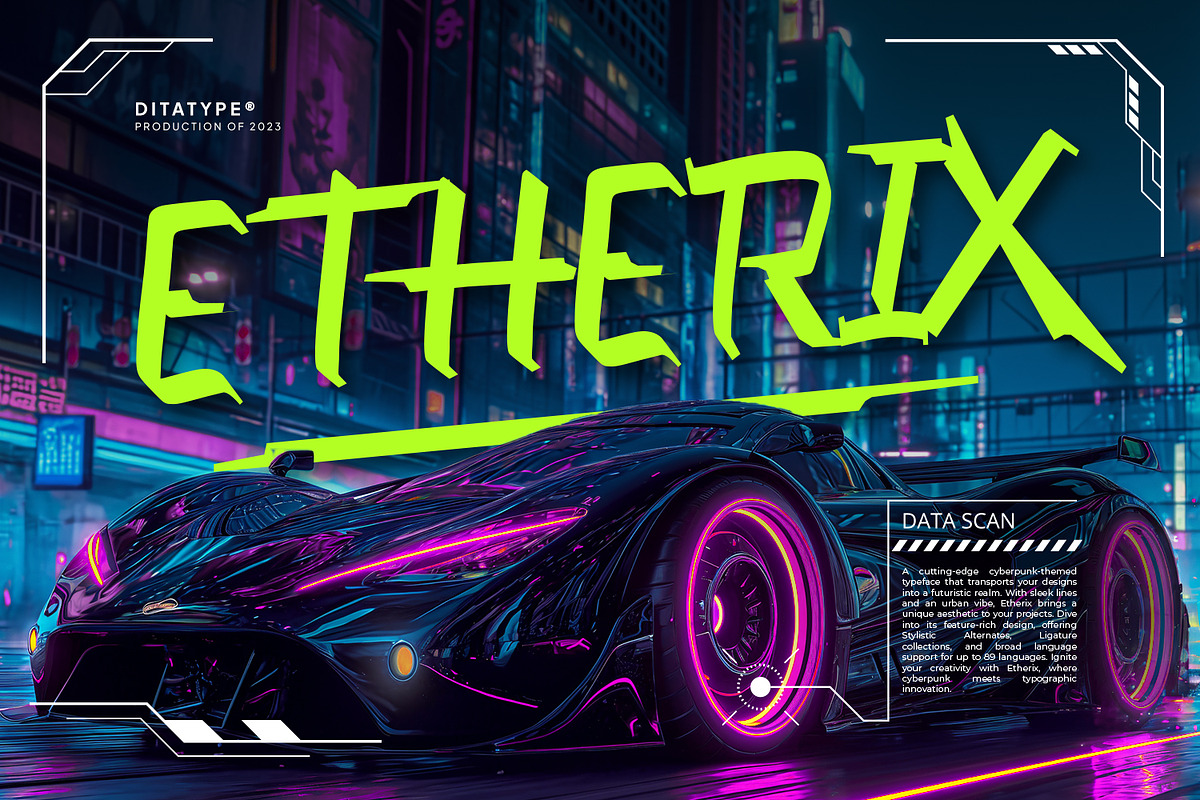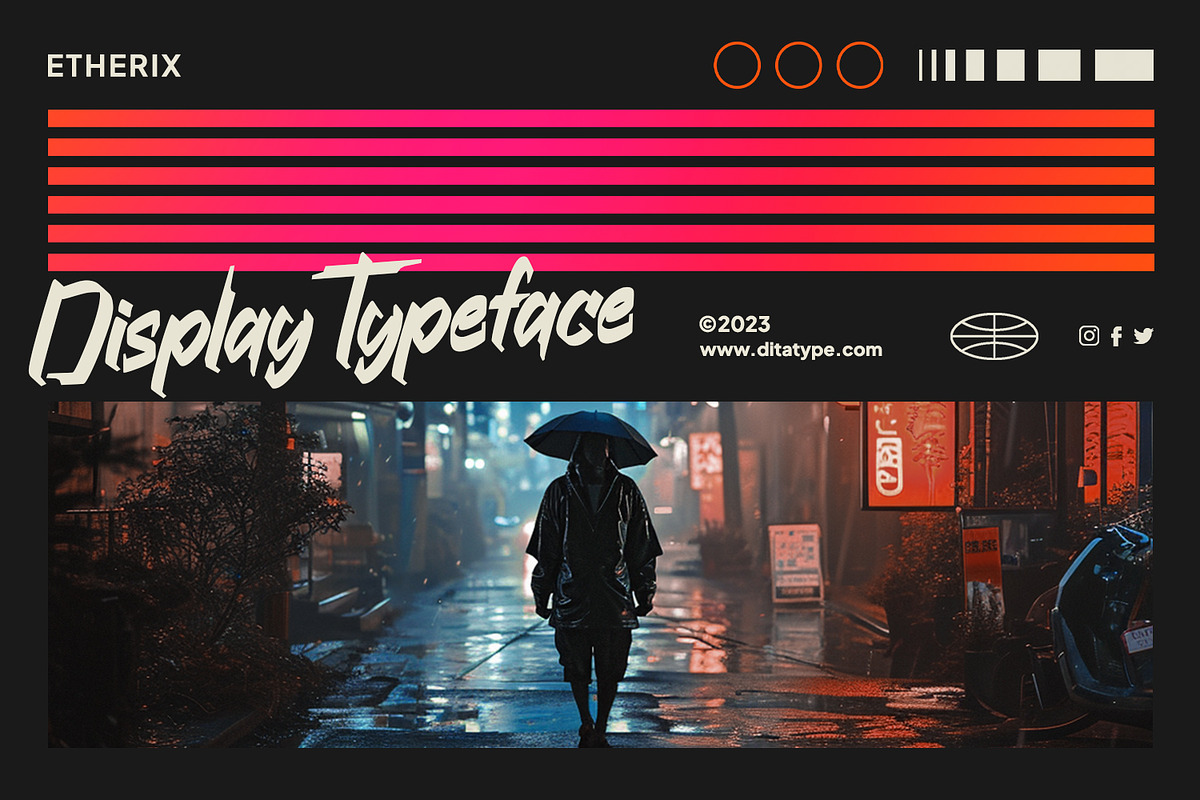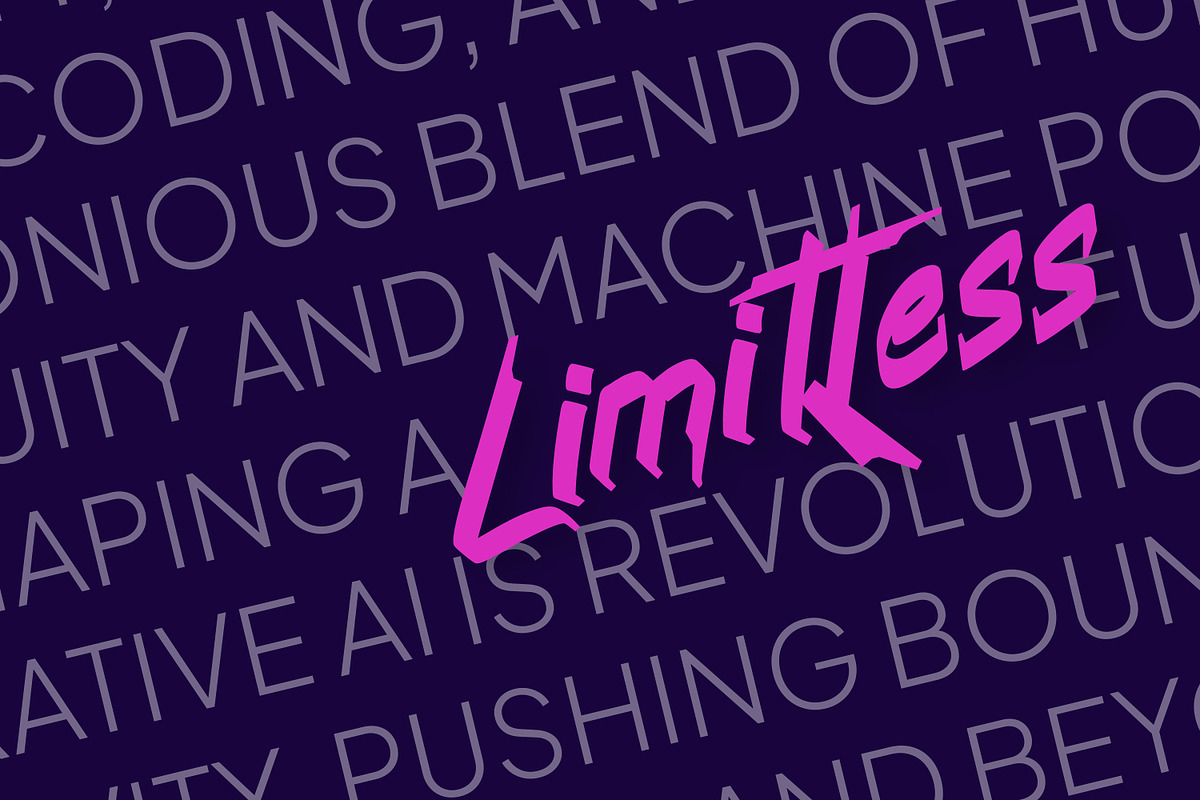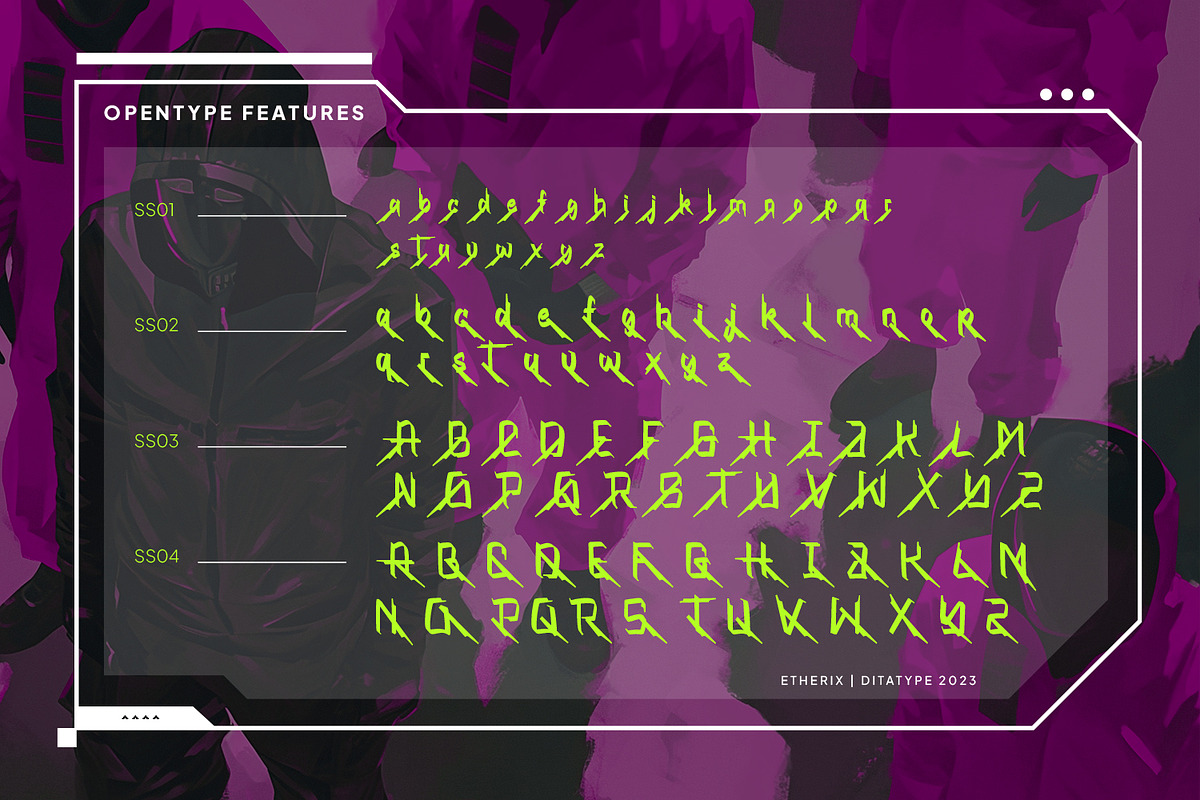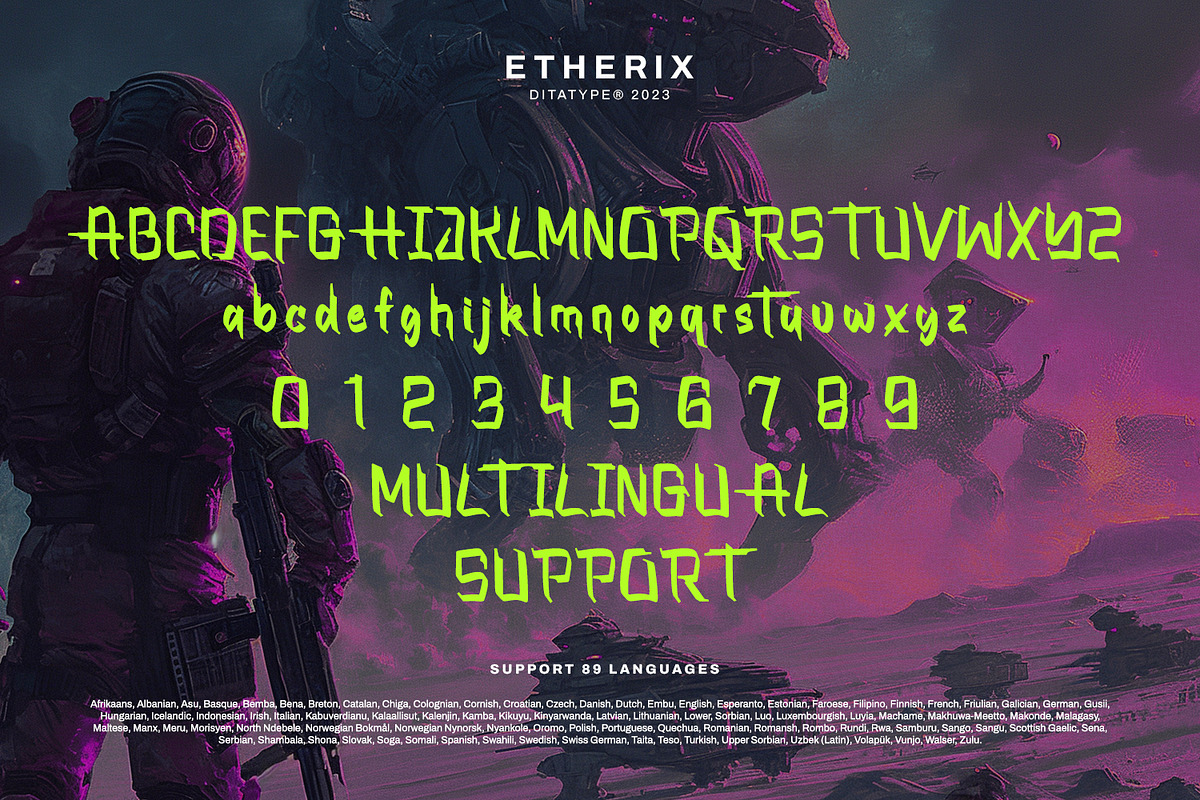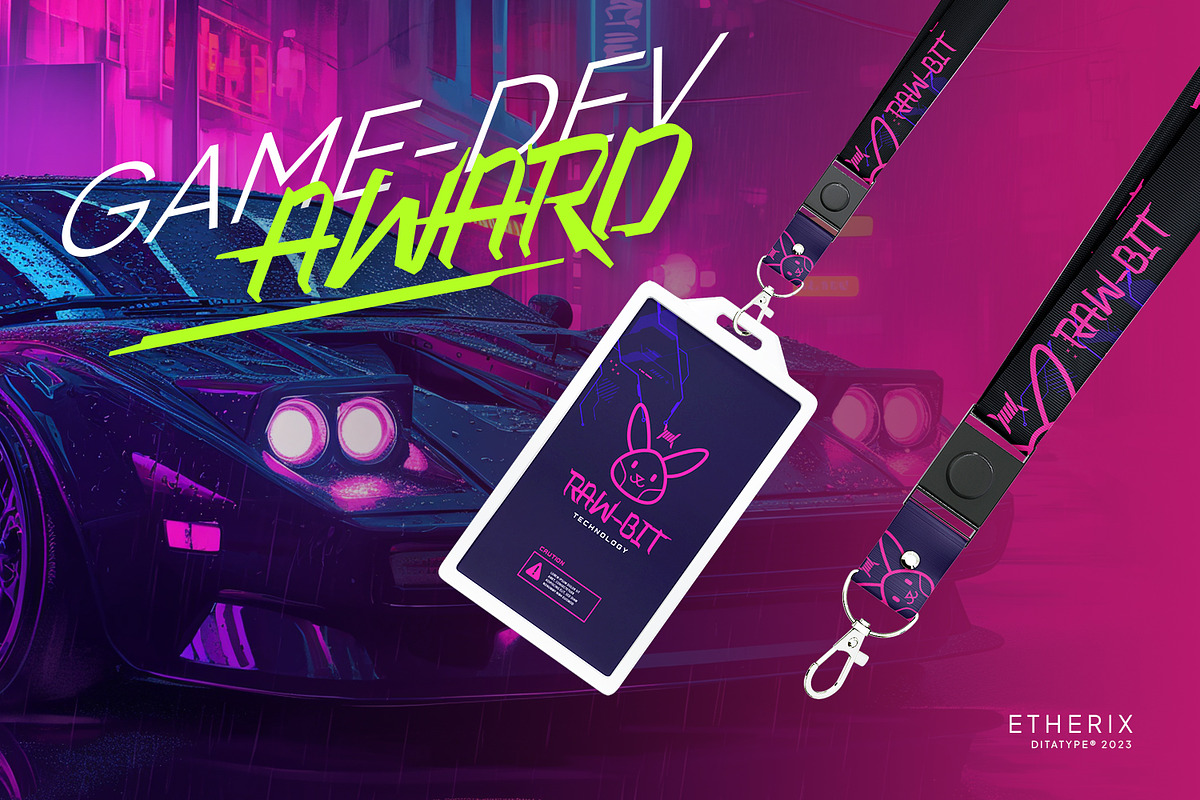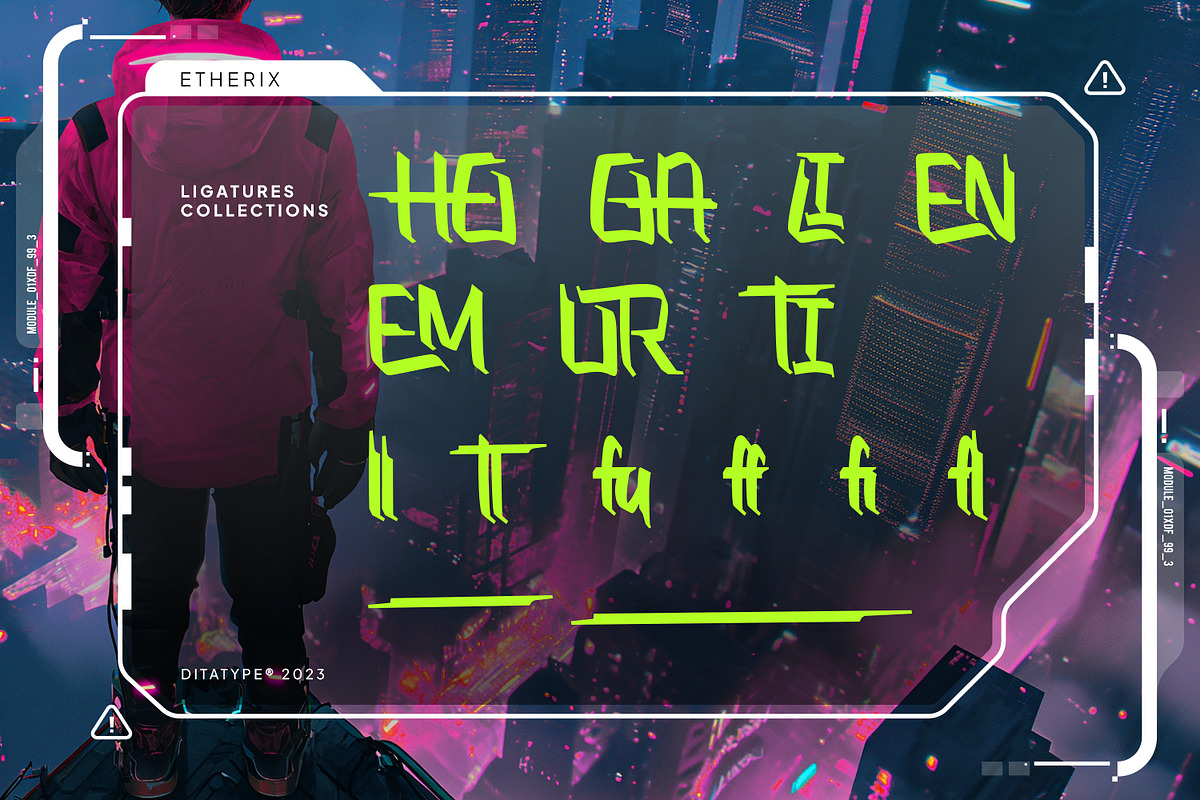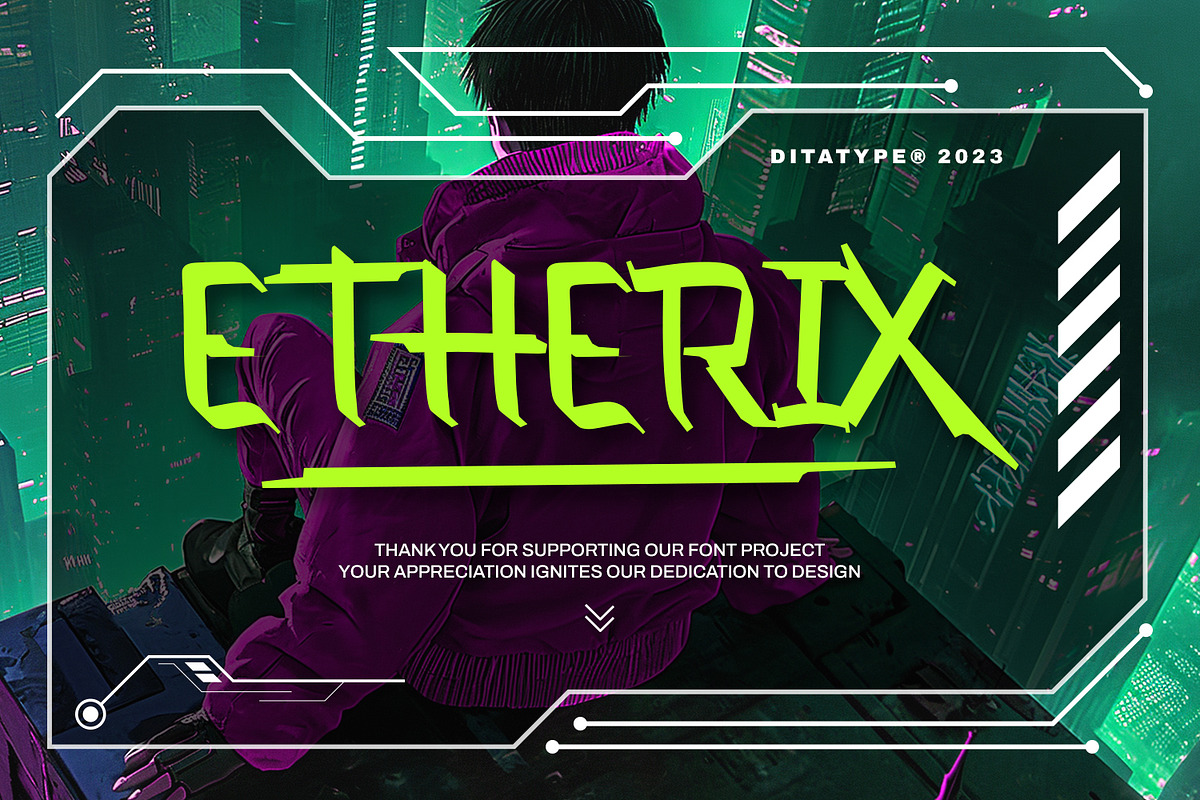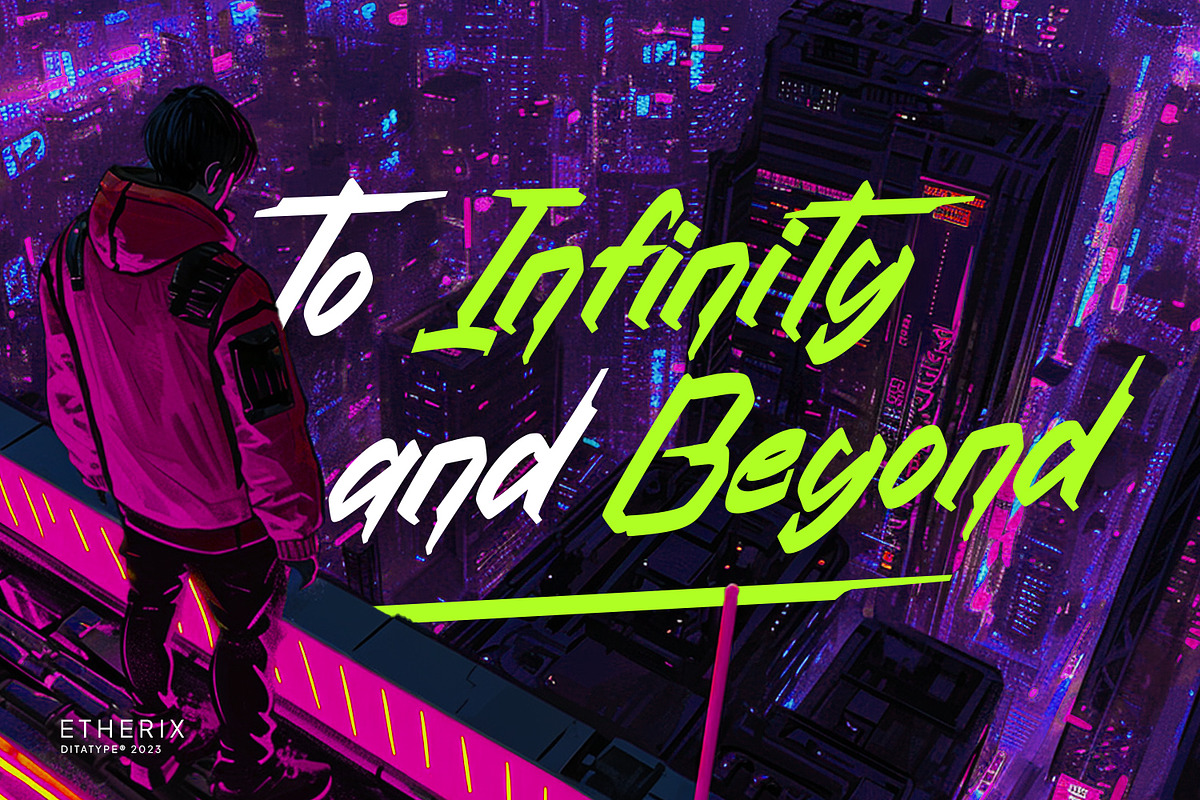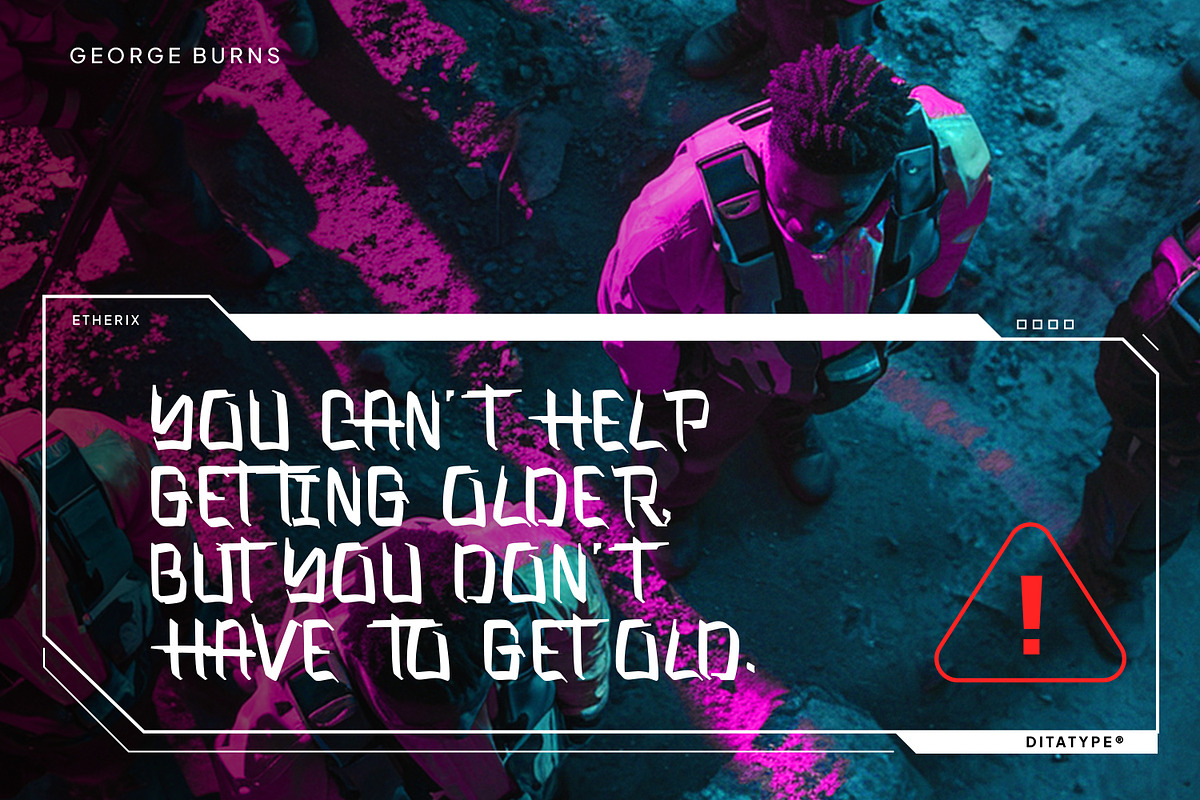
Etherix
Etherix is a captivating display font. With its futuristic style and urban vibes, Etherix captures the spirit of modern city life, making it perfect to convey a sense of urban coolness and contemporary style.
At its core, Etherix featuring sharp lines, geometric shapes, and sleek curves that evoke a sense of innovation and progress. The quite large weight of the font adds a boldness that demands attention. What sets Etherix apart is its uneven outline, which adds an element of rawness and dynamism to the font. This irregularity in the outline gives each character a unique and edgy appearance, reminiscent of the vibrant energy found in urban landscapes and street art. In addition, enjoy the features here.
- Stylistic Sets
Etherix fits in headlines, logos, posters, flyers, technology branding, sci-fi book covers, futuristic UI/UX design, editorial layouts, and many more designs. Find out more ways to use this font by taking a look at the font preview.